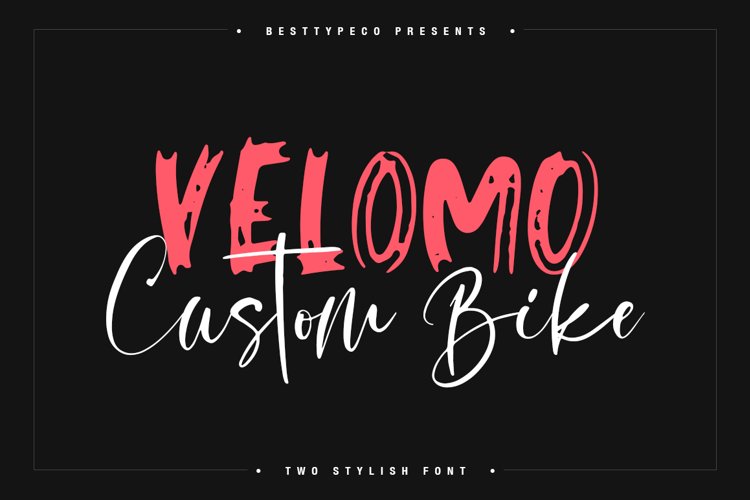
Velomo CB 2 Stylish Font - a new fresh handmade calligraphy font.
Very suitable for greeting cards, branding materials, business cards, quotes, posters, and more!This font are perfect for wedding postcard. Or you can create perfect and unique design of your logo, blog, stationery, marketing, magazines and more :)